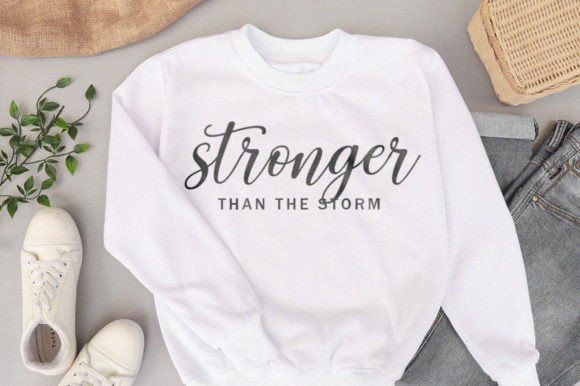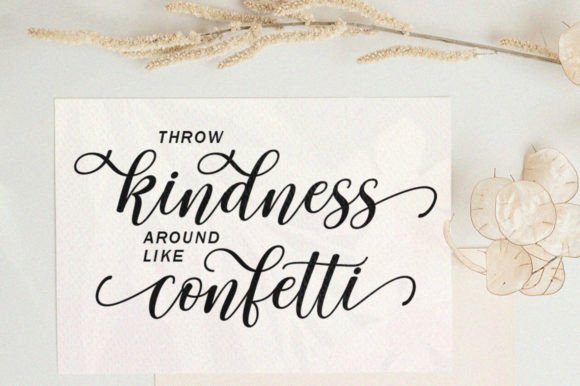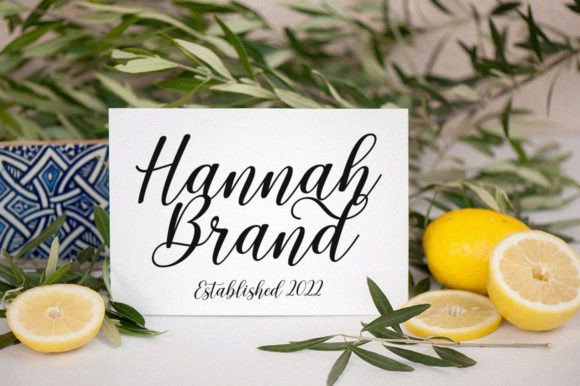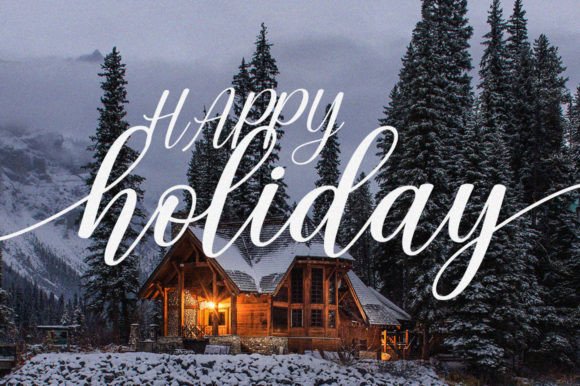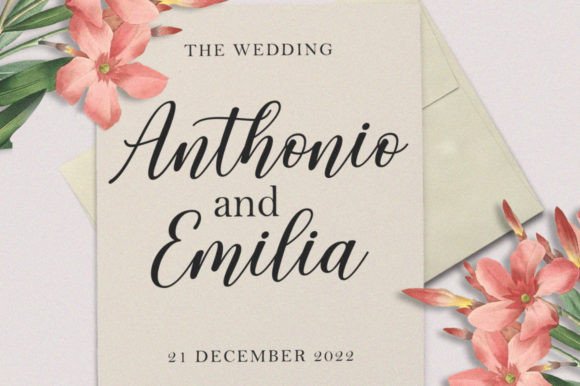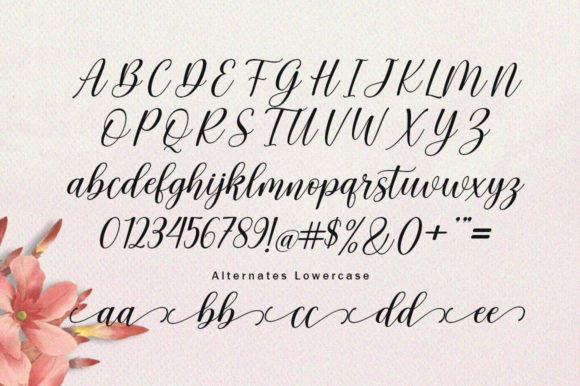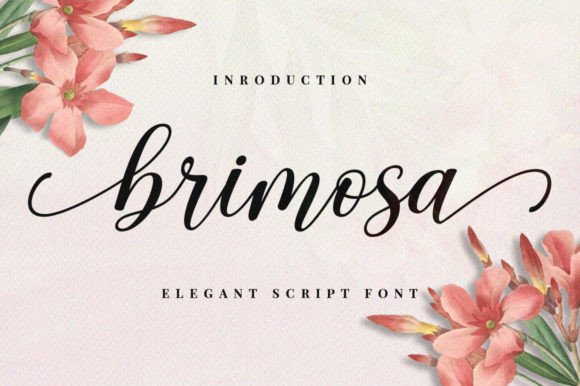
Brimosa Font: Elevate Your Designs with Timeless Elegance
In the world of typography, a font can make or break the aesthetic of a design project. For those seeking a touch of sophistication and elegance, the Brimosa Font is an exceptional choice. This modern and elegant font is meticulously crafted to add a refined touch to any project, making it perfect for designers and crafters looking to create stunning visual content.
Precision Craftsmanship
Each letter in the Brimosa Font is designed with precision, showcasing clean lines and graceful curves that create a breathtaking, flowing effect. The attention to detail is evident in every aspect of the font, from the subtle nuances of the letterforms to the elegant swashes that add a touch of drama to any design. Whether you’re working on a wedding invitation, branding project, or any other design that requires a level of sophistication, Brimosa Font is an excellent choice.
Perfect for Wedding Invitations and Branding
Wedding invitations, in particular, require a level of elegance and refinement that Brimosa Font effortlessly provides. The font’s classic beauty and timeless appeal make it an ideal choice for couples looking to create bespoke wedding stationery that reflects their personal style. Similarly, for branding projects, Brimosa Font offers a level of sophistication that can elevate a brand’s visual identity, making it perfect for luxury brands, high-end products, or services that require a refined aesthetic.
One of the standout features of Brimosa Font is its PUA (Private Use Area) encoding. This means that designers and crafters can access all glyphs and swashes effortlessly, making the design process seamless and efficient. With PUA encoding, you can easily navigate the font’s extensive character set, including swashes, ligatures, and other special characters, allowing you to create complex and beautiful designs with ease.
Timeless Beauty and Refinement
The Brimosa Font embodies timeless beauty and refinement, making it an excellent addition to any design project. Its classic appeal ensures that it will never go out of style, allowing designers and crafters to create content that remains relevant and elegant for years to come. Whether you’re working on a modern design project or a traditional one, Brimosa Font’s versatility and elegance make it an excellent choice.
Why Choose Brimosa Font?
- Modern and Elegant: Brimosa Font boasts a modern and elegant design that’s perfect for creating sophisticated visual content.
- Precision Craftsmanship: Each letter is crafted with precision, featuring clean lines and graceful curves.
- PUA Encoded: Effortlessly access all glyphs and swashes, making the design process seamless and efficient.
- Timeless Appeal: The font’s classic beauty ensures that it will never go out of style.
- Versatile: Perfect for wedding invitations, branding, and other designs that require a touch of sophistication.
In conclusion, the Brimosa Font is an exceptional choice for designers and crafters seeking to add a touch of elegance and sophistication to their design projects. With its precision craftsmanship, PUA encoding, and timeless appeal, this font is perfect for creating stunning visual content that stands out. Whether you’re working on a wedding invitation, branding project, or any other design that requires refinement, Brimosa Font is an excellent choice. Elevate your designs with the Brimosa Font and experience the beauty of typography.